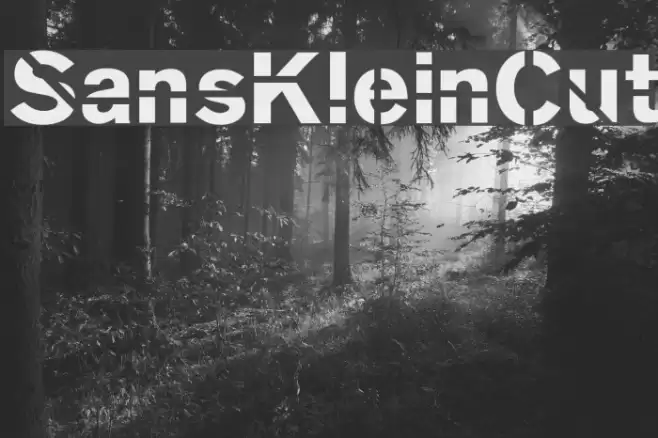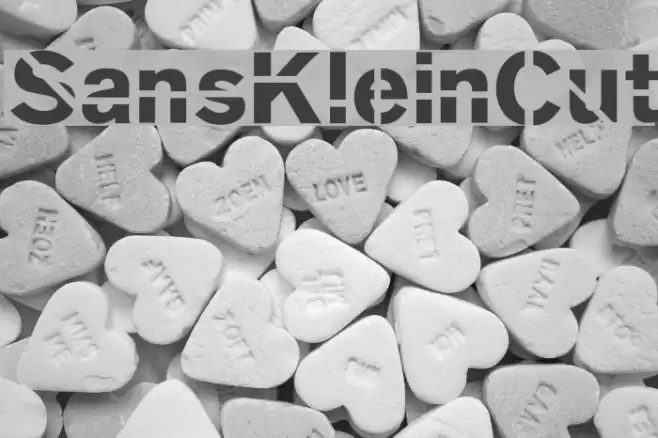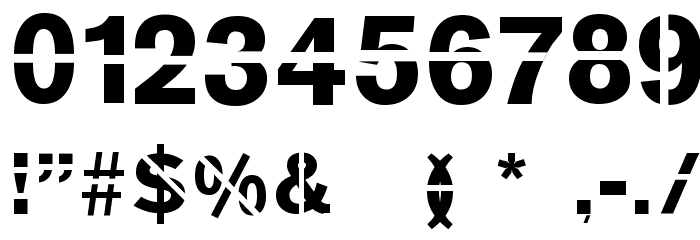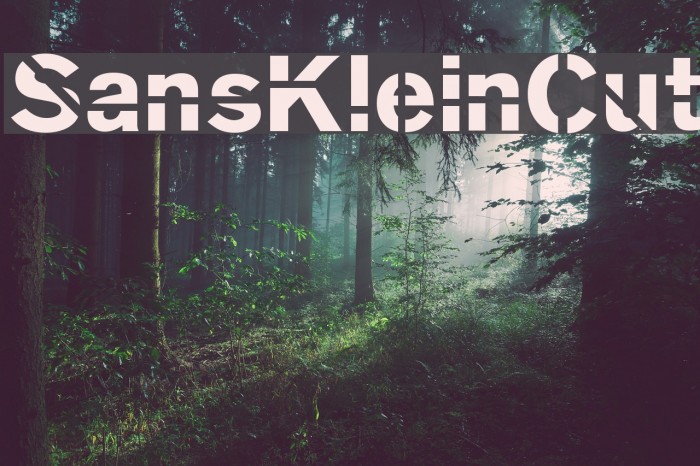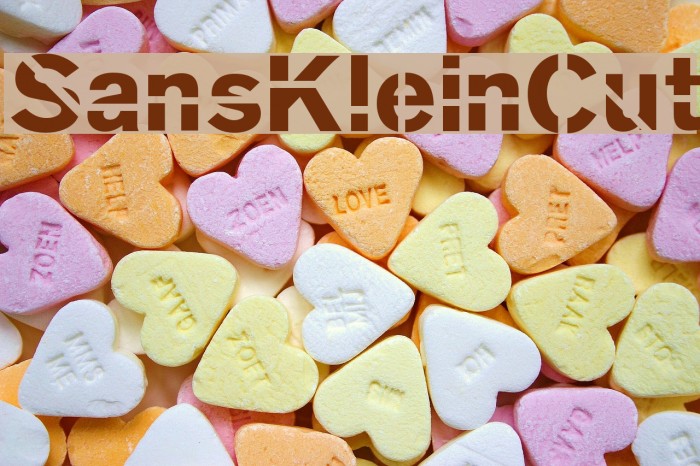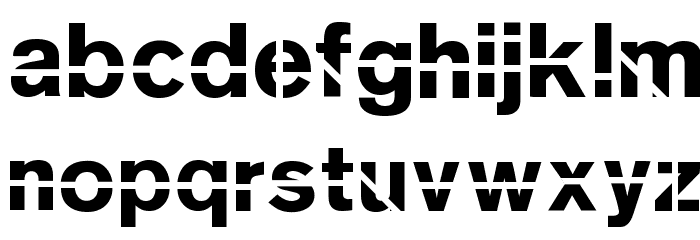
SansKleinCut Font
SansKleinCut Description
This font features a bold and striking design with a modern, geometric aesthetic. Each character is uniquely crafted with sharp angles and distinct cut-out sections, creating a dynamic and edgy appearance. The uppercase and lowercase letters maintain a consistent style, with the cut-out elements adding a sense of movement and intrigue. The numerals and special characters follow the same design principles, ensuring a cohesive look across all elements. This font's boldness and unique style make it stand out, perfect for projects that require a strong visual impact.